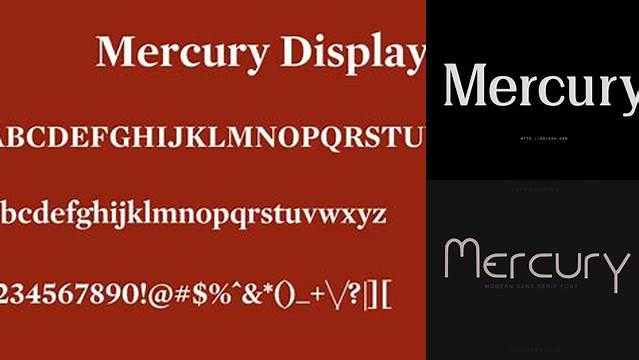
Mercury Serif: Free Font Download Guide
What is Mercury Serif Font?
Mercury Serif font is a classic typeface known for its elegance and readability. It's often used in branding, editorial design, and other creative projects where a touch of sophistication is desired. If you're looking to elevate your design game, understanding what makes Mercury Serif special is the first step. This font family typically includes various weights and styles, offering versatility for different applications. From light and airy designs to bold and impactful statements, Mercury Serif can adapt to your needs. Whether you're designing a logo, creating a website, or working on a print project, this font can bring a sense of timeless appeal.
The beauty of Mercury Serif lies in its well-balanced letterforms and refined details. Each character is carefully crafted to ensure optimal readability, making it a great choice for both headlines and body text. The serifs add a touch of formality and tradition, while the overall design remains modern and approachable. When used effectively, Mercury Serif can enhance the visual hierarchy of your design, guiding the viewer's eye and creating a cohesive and professional look. So, if you're aiming for a blend of classic and contemporary, Mercury Serif might just be the perfect font for you. Keep reading to find out how to get your hands on it for free!
Let's dive deeper into why Mercury Serif has become a favorite among designers. Its clean lines and balanced proportions make it incredibly versatile, fitting seamlessly into various design aesthetics. The font's legibility is a significant advantage, ensuring that your message is clear and easily understood, whether it's on a screen or in print. Moreover, Mercury Serif often comes with a variety of weights and styles, giving you the flexibility to create visual interest and hierarchy in your designs. By using different weights, you can emphasize key elements and guide the reader's eye through the content. The italic version adds a touch of elegance, perfect for quotes or callouts. Overall, Mercury Serif's combination of beauty, versatility, and legibility makes it a standout choice for designers looking to add a touch of sophistication to their work.
Mercury Serif Font: The Basics
Let's break down the basics of Mercury Serif font. Understanding the key characteristics will help you use it effectively in your projects. First, it's a serif font, which means it has small decorative strokes (serifs) at the end of each character. These serifs contribute to its classic and formal appearance. Second, Mercury Serif is known for its high readability, making it suitable for both headlines and body text. The letterforms are well-proportioned and carefully designed to ensure clarity and ease of reading. Third, this font often comes in various weights and styles, such as light, regular, bold, and italic. This versatility allows you to create visual interest and hierarchy in your designs.
Furthermore, Mercury Serif is often used in branding, editorial design, and other projects where a touch of sophistication is desired. Its clean lines and elegant appearance make it a great choice for logos, websites, and print materials. When choosing a font, it's important to consider the overall tone and message of your project. Mercury Serif can convey a sense of professionalism, reliability, and timelessness. However, it's also important to use it sparingly and in combination with other fonts to avoid overwhelming the design. Experiment with different pairings to find what works best for your specific needs. Whether you're a seasoned designer or just starting out, understanding the basics of Mercury Serif will help you create visually appealing and effective designs.